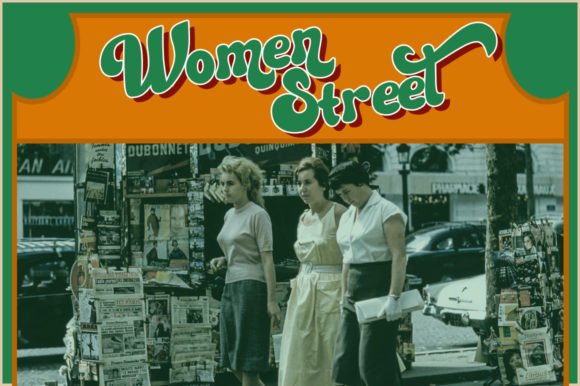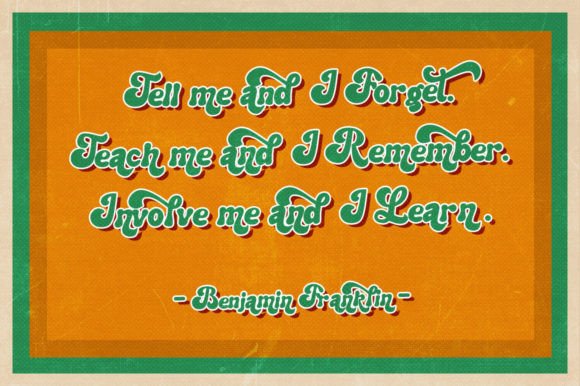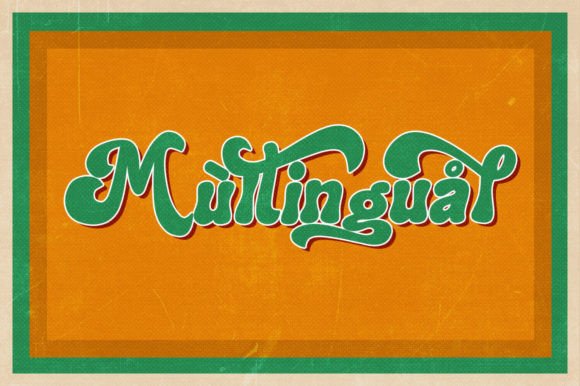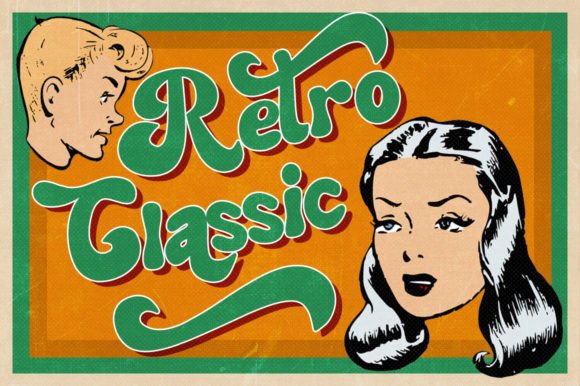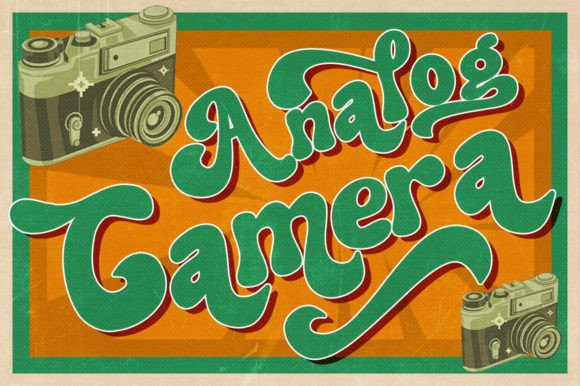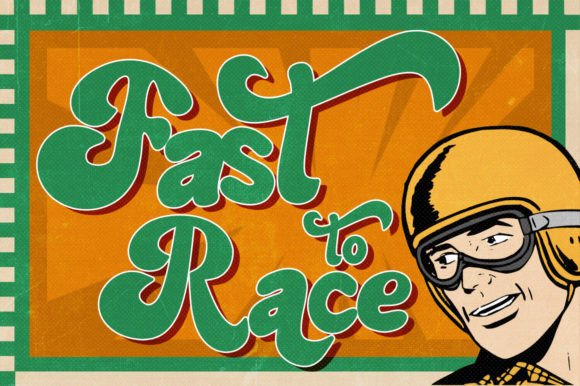
The Sweet Spot of Design: Introducing Better Sweet Font
Have you ever found yourself wandering through a quaint vintage shop, running your fingers over the intricate details of an old typewriter or the weathered pages of a classic novel? For many creatives, moments like these spark a sense of inspiration and nostalgia, guiding their design choices with a timeless charm.
It’s this very essence that Better Sweet Font captures, a vintage display font designed to evoke the warmth and character of a bygone era. Perfect for a wide range of projects, from logos and branding to homeware designs and product packaging, Better Sweet Font adds a touch of elegance and sophistication to any creation. Whether you’re a seasoned designer or just starting out, this versatile font is sure to become a trusted companion in your creative journey.
With its unique blend of vintage charm and modern appeal, Better Sweet Font is a valuable addition to any designer’s toolkit, offering endless possibilities for crafting unique and memorable designs that leave a lasting impression.
- Font Family: Better Sweet, a modern and elegant script font.
- Unique Characteristics: Better Sweet Font features a unique blend of elegance and playfulness, making it ideal for use in creative and design-focused projects.
Designer Review: Better Sweet Font
As a designer, I’m always on the lookout for unique and versatile fonts to enhance my projects. Better Sweet Font caught my attention with its playful and modern aesthetic.
Here are the things that work well:
- ✨ Unique character combinations: The font features a range of interesting character pairings, which add a touch of personality to text.
- ✨ Versatile: Better Sweet Font can be used for a variety of projects, from logos to body text, making it a great addition to any designer’s toolkit.
- ✨ High-quality glyphs: The font’s glyphs are well-designed and look great at various sizes and resolutions.
However, I do have a few concerns:
- ⚠️ Limited language support: Better Sweet Font only includes Latin-based languages, which might be a limitation for designers working on projects with non-Latin scripts.
- ⚠️ Not ideal for small text: While the font looks great at larger sizes, it can become difficult to read at smaller sizes due to its unique character combinations.
Overall, Better Sweet Font is a solid addition to any designer’s library, but it may require some extra consideration when choosing the right project and font size.
For optimal results, use Better Sweet Font in headings and titles to add a touch of elegance.
For a professional look, pair Better Sweet Font with a clean and minimalist design.
For a modern and sophisticated look, use Better Sweet Font in presentations and documents.
Better Sweet Font is perfect for:
- Home decor and interior design projects.
Remember to use Better Sweet Font consistently throughout your design to create a cohesive and stylish look.
Great Vibes is a modern, elegant script font ideal for creating a warm and inviting atmosphere. It’s perfect for designing wedding invitations, social media graphics, and any other content that requires a touch of sophistication. Compared to Better Sweet Font, Great Vibes has a more refined and polished look, making it suitable for high-end branding and advertising.
Canela Font
Canela is a beautiful, cursive font with a vintage feel. It’s perfect for designing labels, packaging, and any other content that requires a touch of nostalgia. Compared to Better Sweet Font, Canela has a more relaxed and casual tone, making it suitable for creative projects and small businesses.
Playfair Display is a luxurious, high-end serif font ideal for creating a sense of grandeur and sophistication. It’s perfect for designing high-end branding, advertising, and any other content that requires a touch of elegance. Compared to Better Sweet Font, Playfair Display has a more formal and refined look, making it suitable for high-end events and luxury brands.